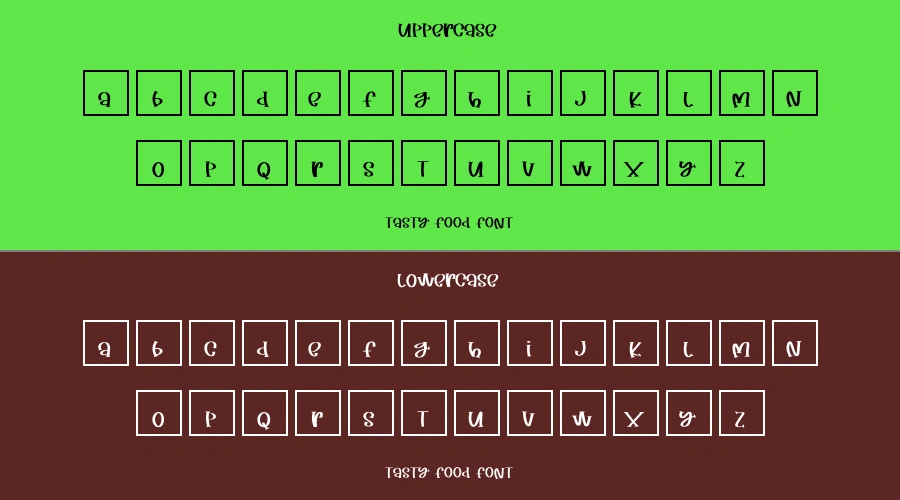
About Tasty Food Font
Designed with precision, Tasty Food Font merges bold expressions with authenticity in every character. This versatility makes it particularly effective for poster titles, where expressiveness and consumer connection directly impact communication quality. Each letterform demonstrates meticulous craftsmanship.
Technical excellence shines through elements like ball terminals and lining figures, enhancing typographic versatility. In product names settings, Tasty Food Font proves its worth through superior special effects. The thoughtful execution of descender depth and design lineage ensures professional results.